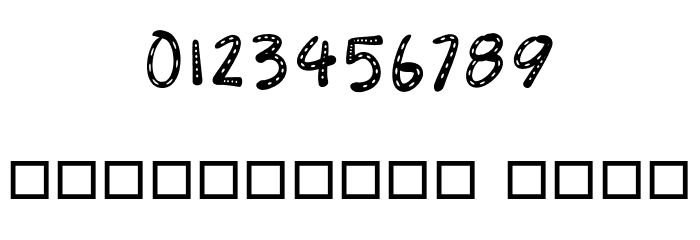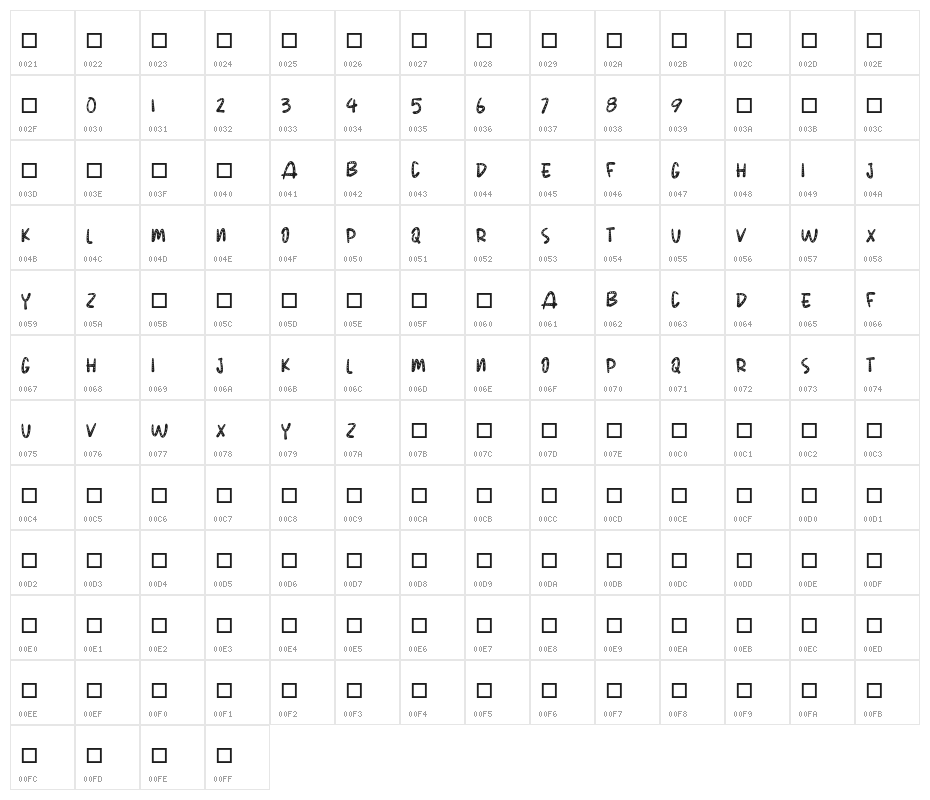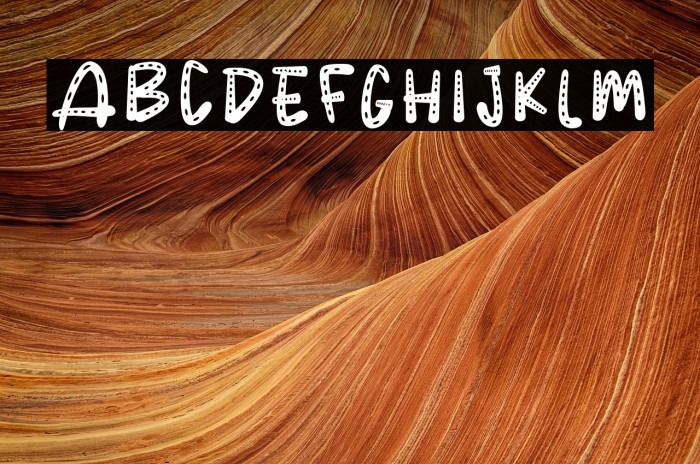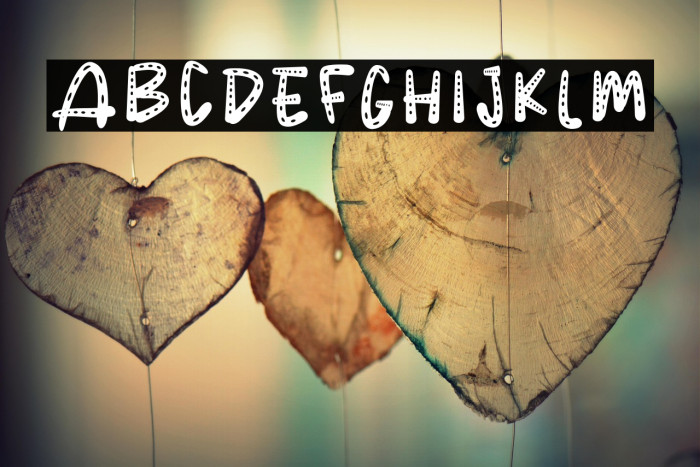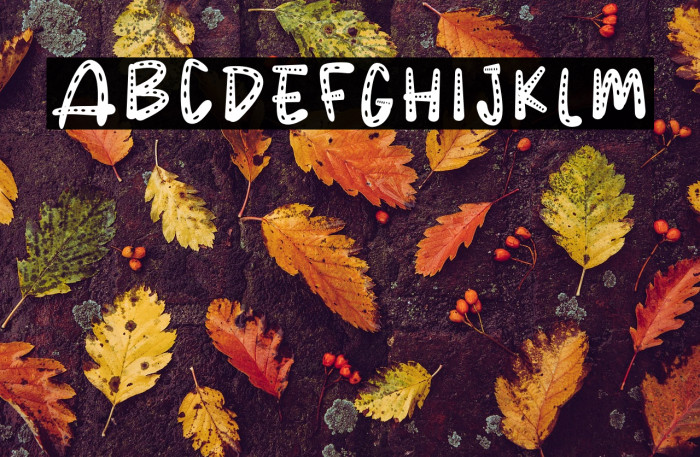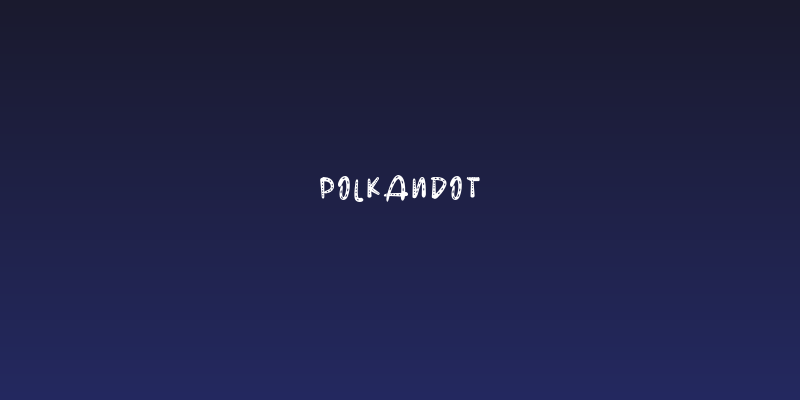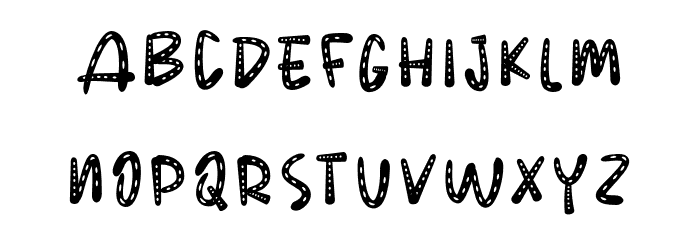
POLKANDOT Font
POLKANDOT Description
This playful and whimsical font features a unique polka dot pattern within each character, giving it a lively and fun appearance. The letters are bold and rounded, with a consistent thickness that makes them easy to read while maintaining a decorative flair. The uppercase and lowercase letters share a similar style, ensuring a cohesive look across different text cases. Numbers and special characters are also included, each maintaining the same dotted design, making this font versatile for various uses. Its distinctive style is perfect for projects that require a touch of creativity and playfulness.